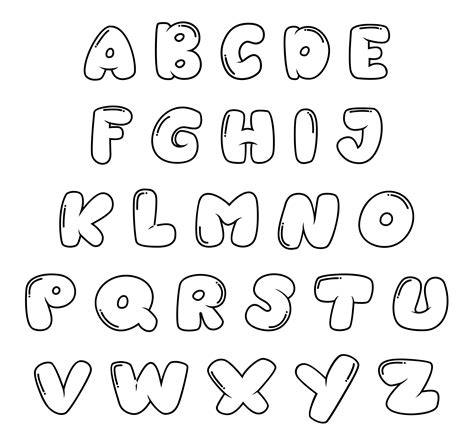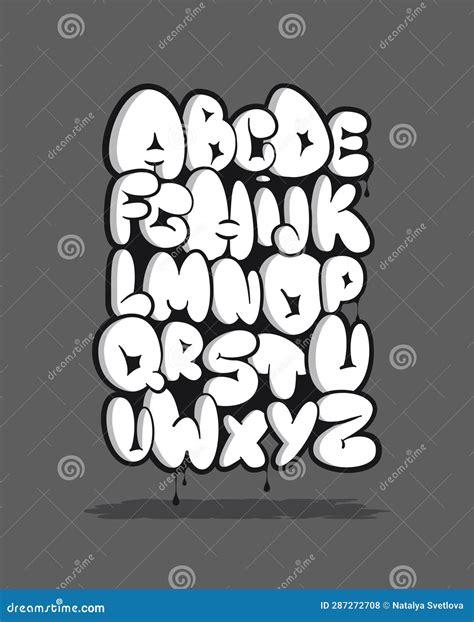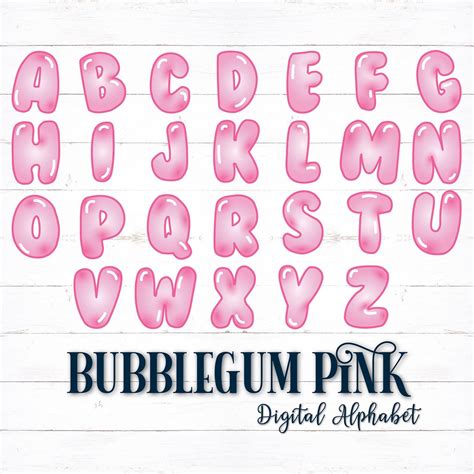
Bubble Alphabet Fonts
In the world of design, typography plays a crucial role in setting the tone and conveying the message of a project. One of the most whimsical and playful styles of typography is the bubble alphabet fonts. These fonts are characterized by their rounded, bubbly shapes that evoke a sense of fun and creativity. Whether you're designing a children's book, a playful logo, or a vibrant website, bubble alphabet fonts can add a touch of charm and uniqueness to your work. Let's dive into the fascinating world of bubble alphabet fonts, exploring their origins, uses, and how to incorporate them into your designs.
What Are Bubble Alphabet Fonts?
Bubble alphabet fonts are a type of display font that features letters with rounded, bubble-like shapes. These fonts are often used to convey a sense of playfulness and creativity. The rounded edges and soft curves make them visually appealing and easy to read, even from a distance. Bubble alphabet fonts are particularly popular in designs aimed at children, but they can also be used in a variety of other contexts to add a touch of whimsy.
History and Evolution of Bubble Alphabet Fonts
The origins of bubble alphabet fonts can be traced back to the mid-20th century when designers began experimenting with more playful and expressive typography. The style gained popularity in the 1960s and 1970s, a time when bold, colorful designs were in vogue. The rounded, bubbly shapes of these fonts were inspired by the organic forms found in nature and the playful aesthetics of pop art.
Over the years, bubble alphabet fonts have evolved to include a wide range of styles and variations. Today, you can find bubble alphabet fonts in various weights, from thin and delicate to bold and chunky. Some fonts feature additional design elements, such as shadows, gradients, and outlines, to enhance their visual appeal.
Uses of Bubble Alphabet Fonts
Bubble alphabet fonts are incredibly versatile and can be used in a variety of design projects. Here are some of the most common uses:
• Children's Books and Educational Materials: The playful and friendly appearance of bubble alphabet fonts makes them ideal for children's books, educational materials, and learning aids. They can help make learning the alphabet fun and engaging for young children.
• Logos and Branding: Bubble alphabet fonts can add a touch of whimsy to logos and branding materials. They are particularly well-suited for brands that want to convey a sense of creativity, playfulness, or approachability.
• Websites and Digital Designs: On websites and digital designs, bubble alphabet fonts can help create a visually appealing and engaging user experience. They can be used for headings, buttons, and other interactive elements to make the design more inviting.
• Invitations and Greeting Cards: For special occasions, bubble alphabet fonts can add a personal and playful touch to invitations and greeting cards. They can help convey a sense of joy and celebration.
• Packaging Design: In packaging design, bubble alphabet fonts can make products stand out on the shelf. They can be used to create eye-catching labels and packaging that appeal to a wide range of consumers.
How to Choose the Right Bubble Alphabet Font
When selecting a bubble alphabet font for your project, there are several factors to consider. Here are some tips to help you choose the right font:
• Purpose and Audience: Consider the purpose of your design and the audience you are targeting. For example, if you are designing a children's book, you might want a font that is playful and easy to read. If you are creating a logo for a professional brand, you might want a font that is more sophisticated and elegant.
• Legibility: Ensure that the font is legible and easy to read, especially if it will be used in small sizes or from a distance. Some bubble alphabet fonts can be more decorative than functional, so choose one that balances style and readability.
• Style and Aesthetics: Consider the overall style and aesthetics of your project. Choose a font that complements the other design elements and enhances the visual appeal of your work.
• Versatility: If you plan to use the font in multiple contexts, choose one that is versatile and can be adapted to different sizes and styles. Some bubble alphabet fonts come in multiple weights and styles, making them more flexible for various applications.
Incorporating Bubble Alphabet Fonts into Your Designs
Once you have chosen the right bubble alphabet font for your project, it's time to incorporate it into your design. Here are some tips to help you get started:
• Use Sparingly: Bubble alphabet fonts are best used sparingly to create a focal point or highlight important information. Overusing the font can make your design look cluttered and overwhelming.
• Pair with Complementary Fonts: Pair your bubble alphabet font with complementary fonts to create a balanced and harmonious design. For example, you might use a bubble alphabet font for headings and a more traditional serif or sans-serif font for body text.